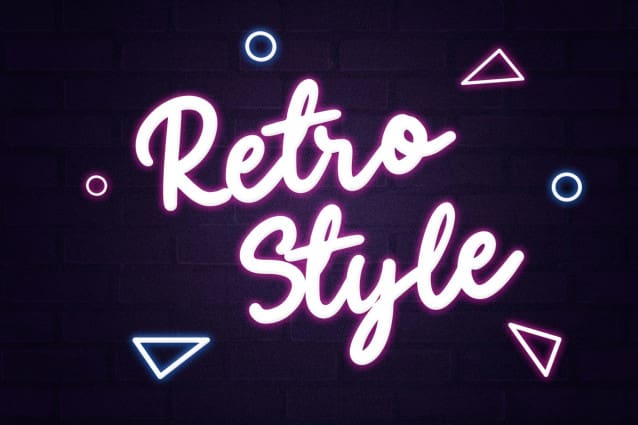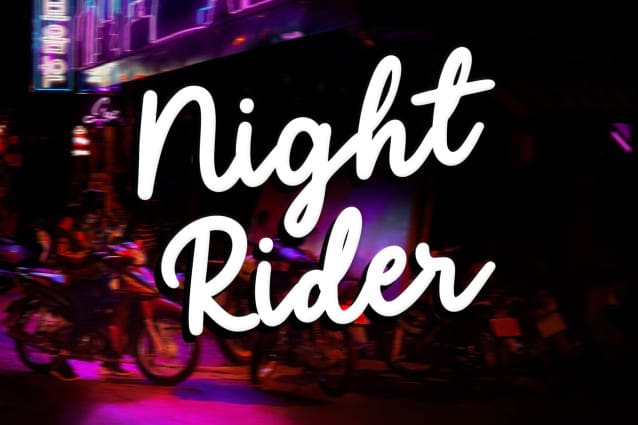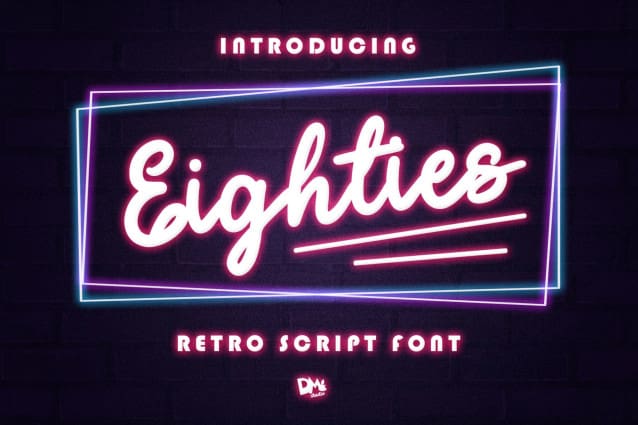
Eighties Script Font
Eighties Script Font – Retro Script Font is a stylish and nostalgic typeface that takes inspiration from the bold and vibrant typography of the 1980s. With its retro script style and energetic letterforms, this font adds a touch of vintage flair and nostalgia to your designs, making it perfect for posters, album covers, branding, and other retro-themed projects.